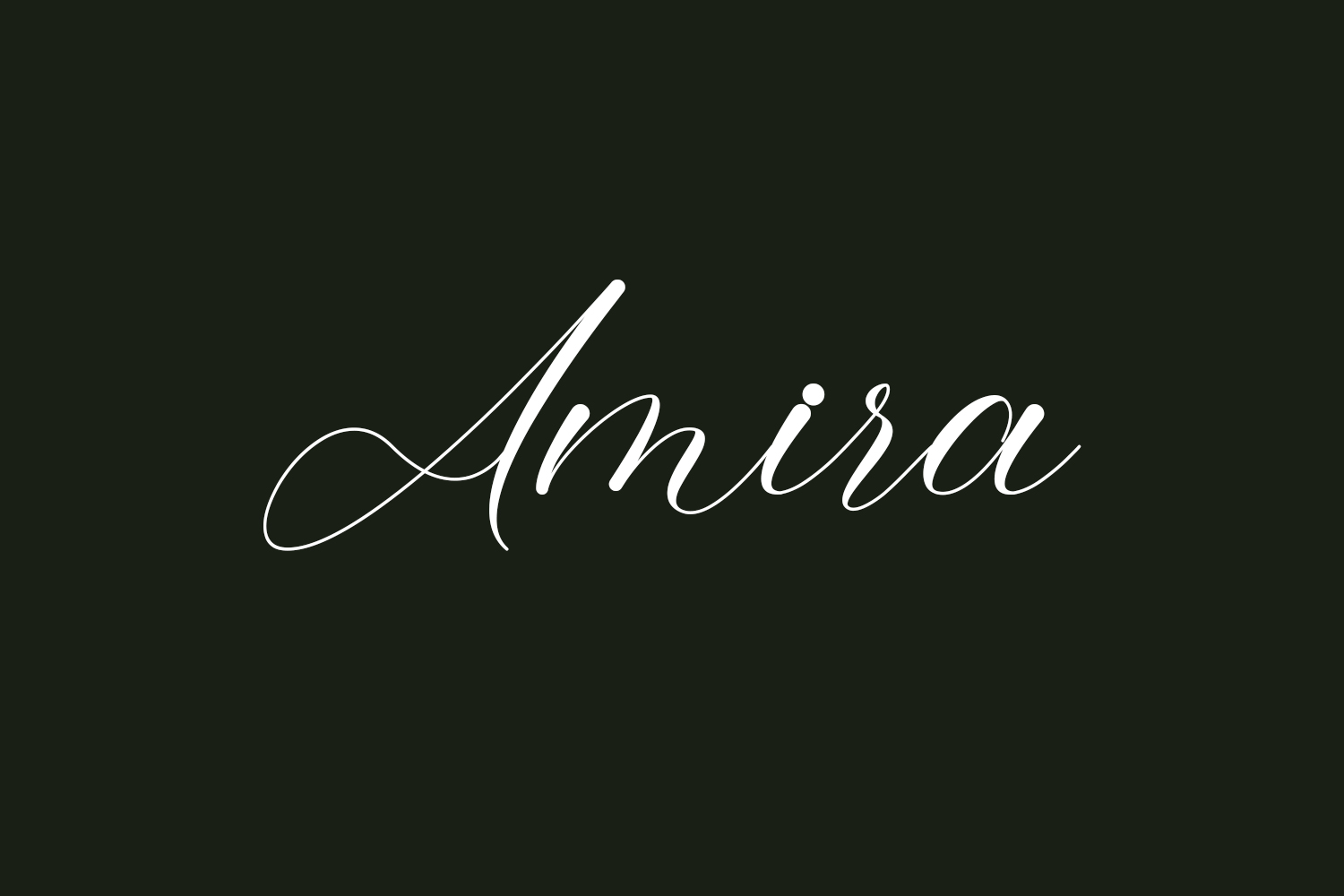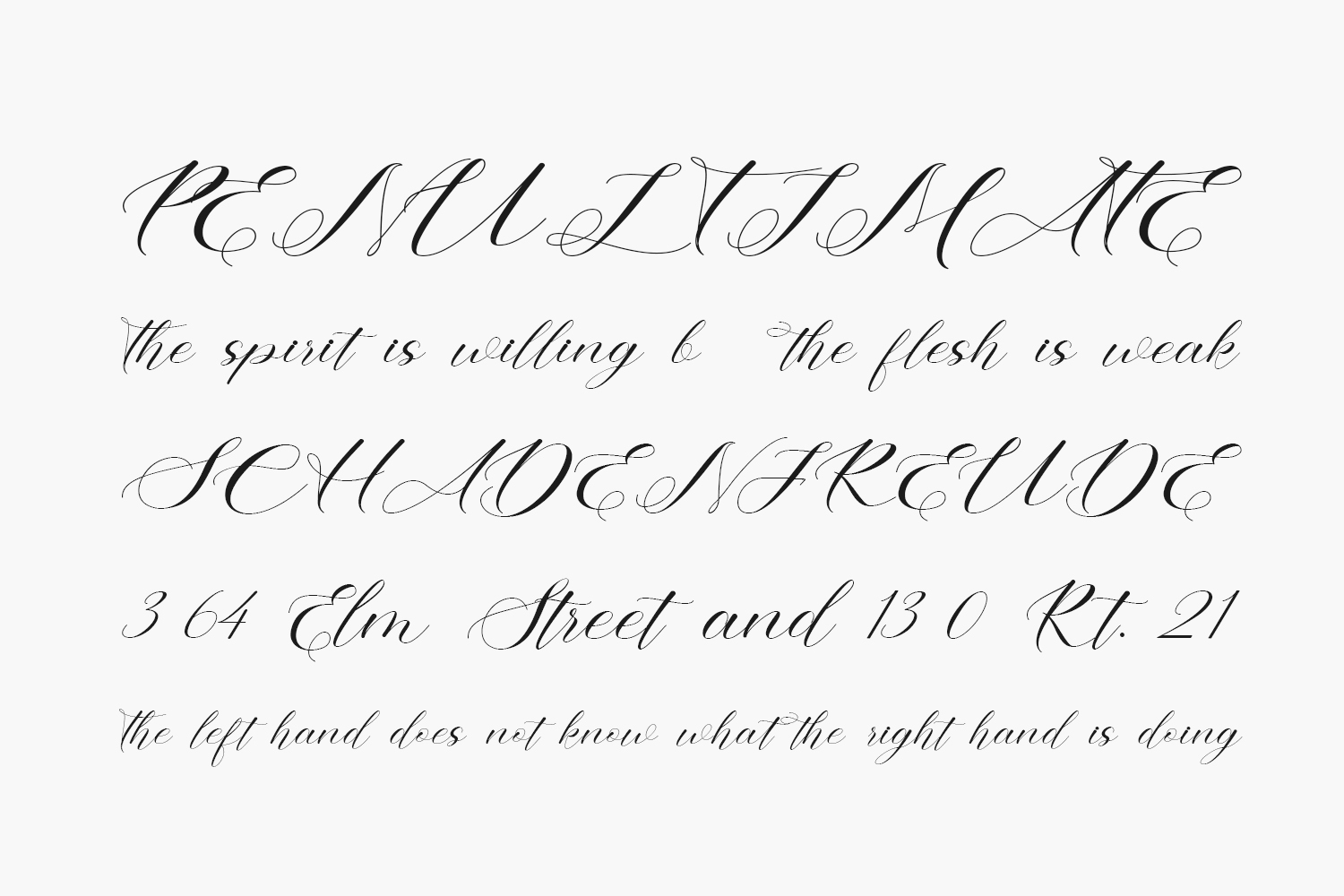
Amira Free Font is an elegant handwritten font that perfectly combines originality with a modern style. It has the potential to elevate the look of your most creative designs.
Designed by JunCreative